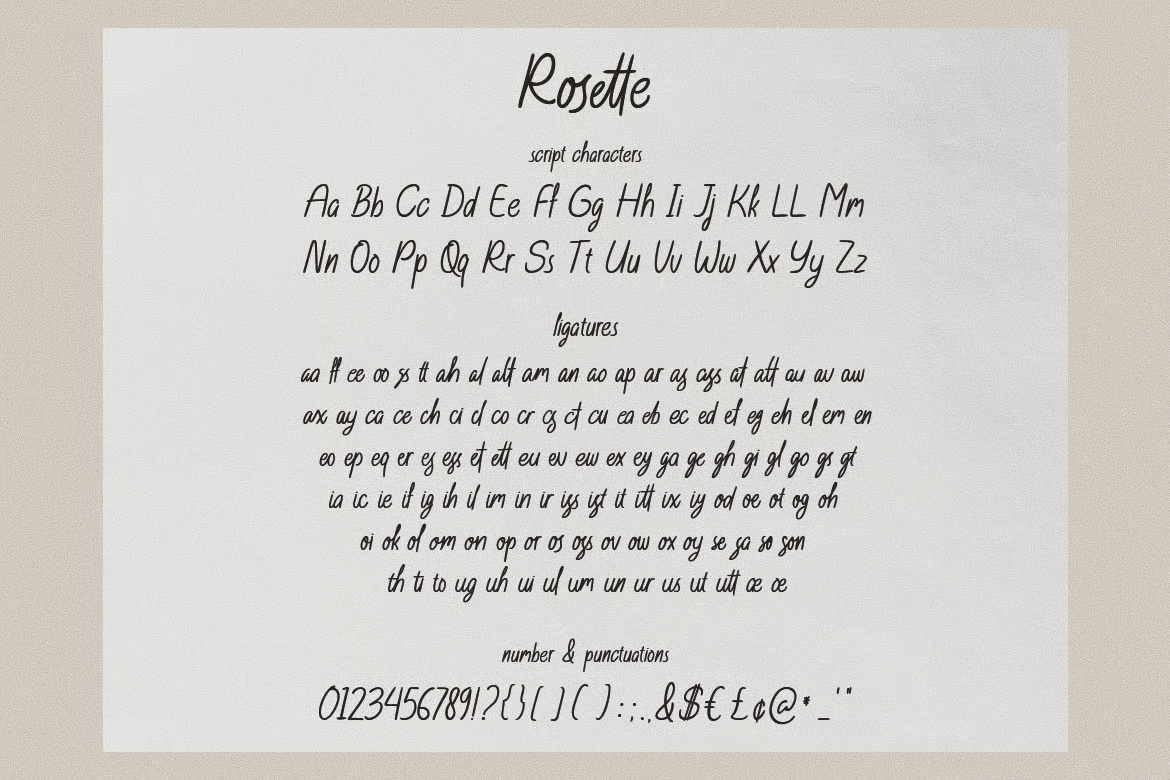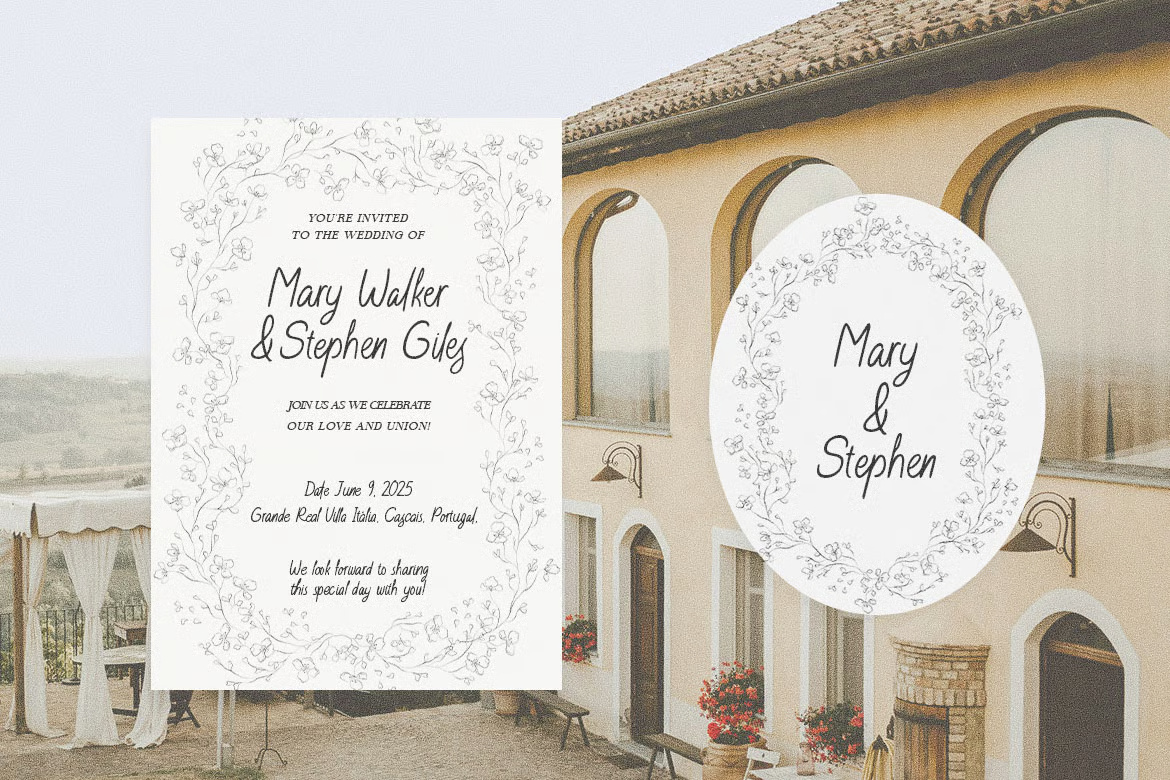
Rosette Organic Handwriting is a beautifully crafted font that radiates elegant sophistication while bringing a warm, authentic feel to your designs. Inspired by the charm of handwritten notes, Rosette captures the essence of natural handwriting—making it perfect for heartfelt and personal projects.
Its organic letterforms strike a perfect balance between artistry and legibility, ensuring your message stands out across various media. Whether you’re designing for social media, personal blogs, or artisanal branding, Rosette adds a polished yet inviting touch that draws the viewer in with sincerity.
Rosette Handwriting Script Font